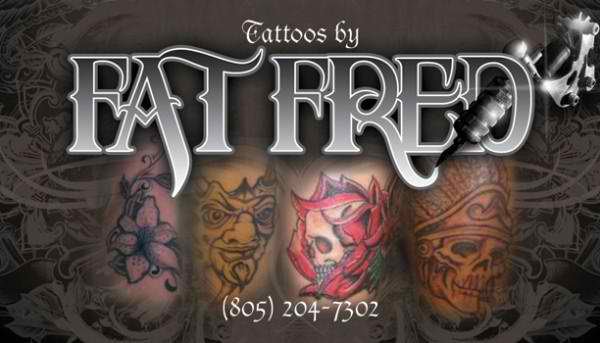
Hey guys in need of some help. This is driving me crazy because I know the name of this font but cant get it out of me. Its similar to Letterheads Boston Truckstyle but not quite the same.
It is the font that reads FAT FRED